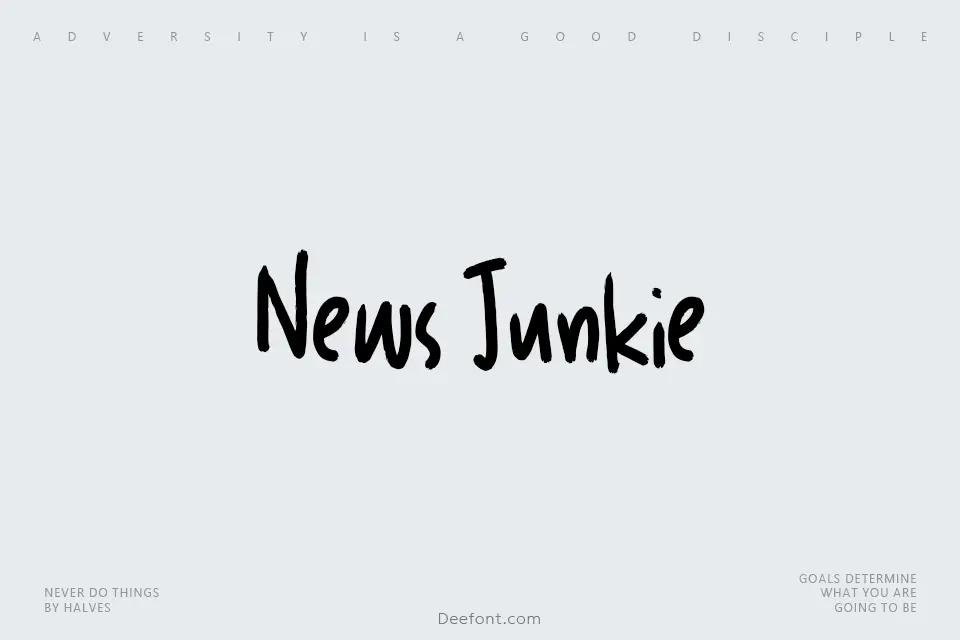
News Junkie Font
News Junkie Font is a gritty handwritten script with tall, irregular strokes, inky edges and a fast marker feel that looks ripped from frantic newsroom notes. Its chaotic rhythm and rough texture make it perfect for horror posters, thriller movie titles, grunge album covers, zines, edgy social media graphics and Halloween event branding.